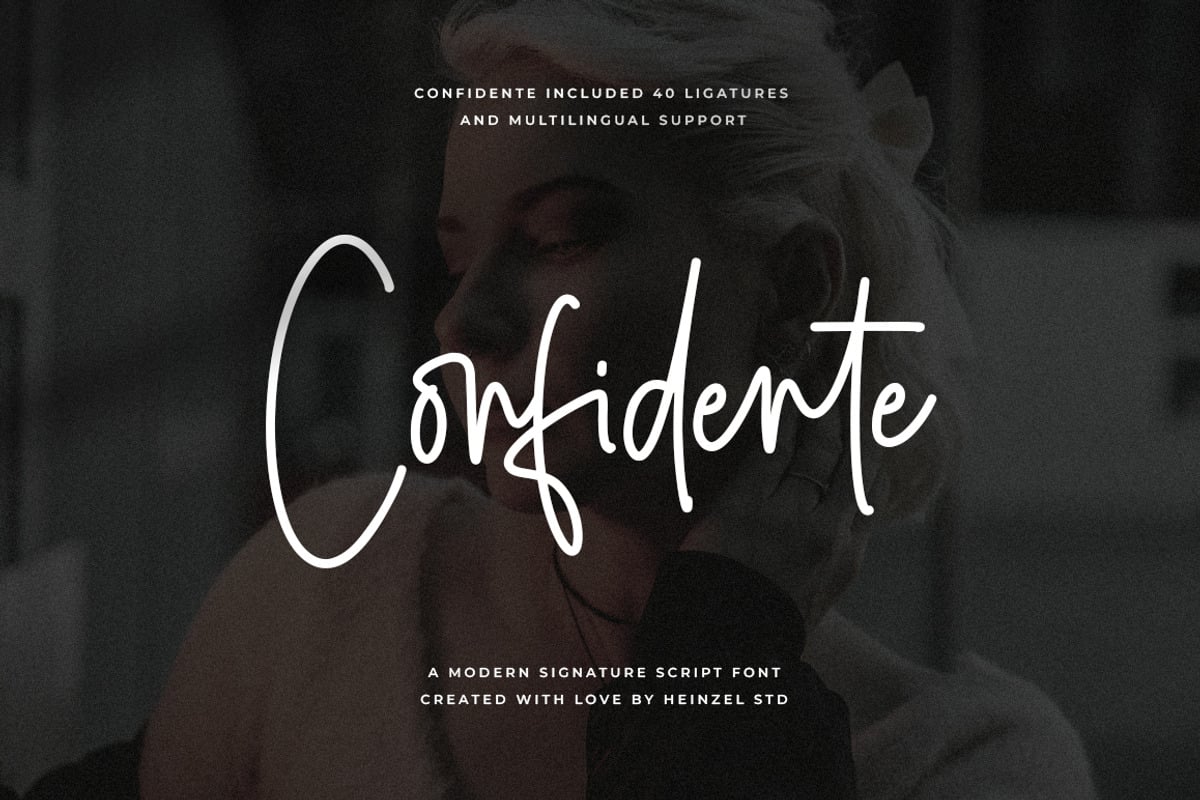
Confidente Signature Script Font
Confidente is a flowing signature script font that brings handcrafted elegance to weddings, branding, and beyond.
Introducing the Confidente Signature Script Font — a stunning typeface that captures the timeless beauty of a handwritten signature. Its graceful, fluid letterforms add a touch of sophistication to any project, making it an ideal choice for wedding invitations, thank-you cards, quotes, greeting cards, logos, business cards, and more.
Every character in Confidente is meticulously crafted to be perfectly balanced, harmonious, and legible. The smooth, flowing strokes replicate the natural beauty of handwriting, creating an authentic and personalized feel across all your designs.
Confidente Features:
- 40 stunning ligatures
- Multilingual support for 21 languages: Afrikaans, Basque, Breton, Catalan, Danish, Dutch, English, Finnish, French, Gaelic (Irish, Scots), German, Icelandic, Indonesian, Irish, Italian, Norwegian, Portuguese, Saami (Southern), Spanish, Swahili, and Swedish